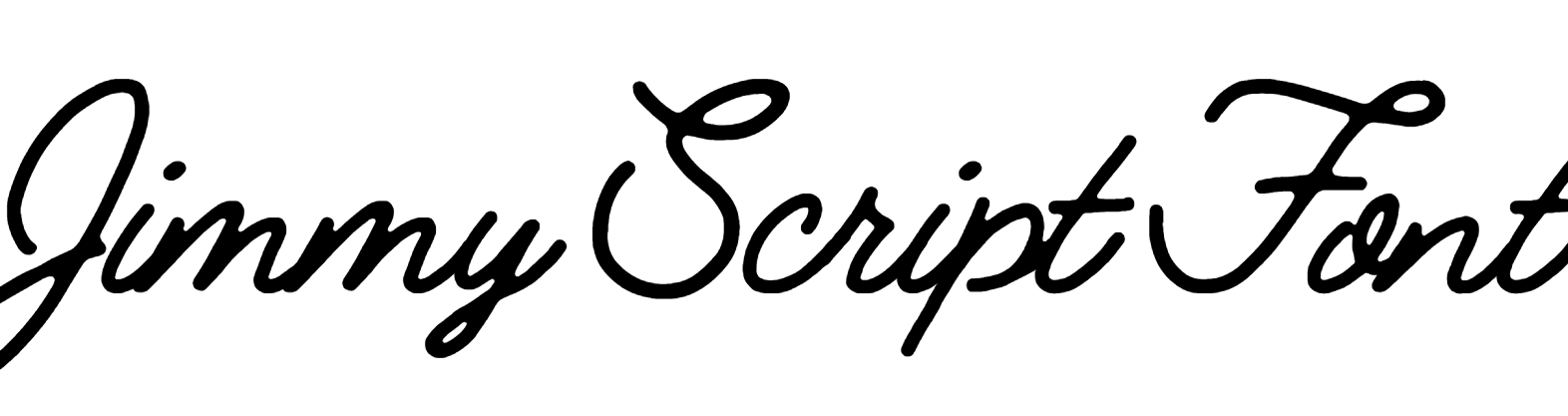
Jimmy Script
Jimmy Script is a handwritten font made by Tom Chalky (2015). It has a casual, written-with-a-pen look that makes designs feel personal. You can download it for free and test it with your own words in the preview above.
- Designer: Tom Chalky
What You Can Type With Jimmy Script
Jimmy Script covers the full alphabet in upper and lowercase, plus all ten numbers, so you can set names, dates and prices without switching fonts. Common punctuation such as &, !, ? and @ is included as well. It also has the accented letters you need for Spanish, French, German, Portuguese and Italian.
Where Jimmy Script Works Best
Think of Jimmy Script for greeting cards, journal pages and friendly social posts. Its lowercase letters are small compared to the capitals, so set it a size or two bigger than usual. Set it a bit larger than you would a normal text font. Handwriting styles lose their charm once they get too small to read comfortably.
Who designed Jimmy Script font?
Does Jimmy Script support accented letters?
Yes. Jimmy Script includes the accented letters needed for Spanish, French, German, Portuguese and Italian, so it works for more than just English.